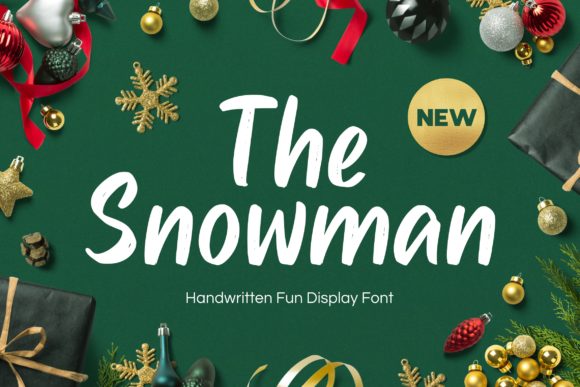
Behold, The Snowman Font - A Frosted Masterpiece For Your Creative Endeavors
In a world where artistry meets elegance, The Snowman Font stands tall as a true masterpiece. This enchanting script font, hailing from the creative minds at Fype Co., captures the magic of winter's wonderland and transforms it into a tangible art form.
The Snowman Font is not merely a collection of letters; it's an invitation to embark on a whimsical journey where creativity reigns supreme. With its graceful strokes and delicate curves, this font dances across your screen, painting words with a brush dipped in frozen dreams.
Step into a realm where imagination knows no bounds, where The Snowman Font becomes your trusted companion. Its carefully crafted characters, reminiscent of frosty landscapes, add a touch of captivating charm to your designs, whether you're crafting logos, invitations, or simply expressing your heartfelt messages.
This font is more than just a tool; it's an extension of your creative soul, allowing you to weave tales that resonate with your audience. Its enchanting nature makes it the perfect choice for projects that demand a touch of whimsy and elegance, from enchanting wedding invitations to captivating social media posts.
With The Snowman Font, you'll discover a world where imagination meets reality, where words take flight and dance upon the page. Let this font be your guide as you embark on a creative journey that leaves hearts touched and eyes wide with wonder.